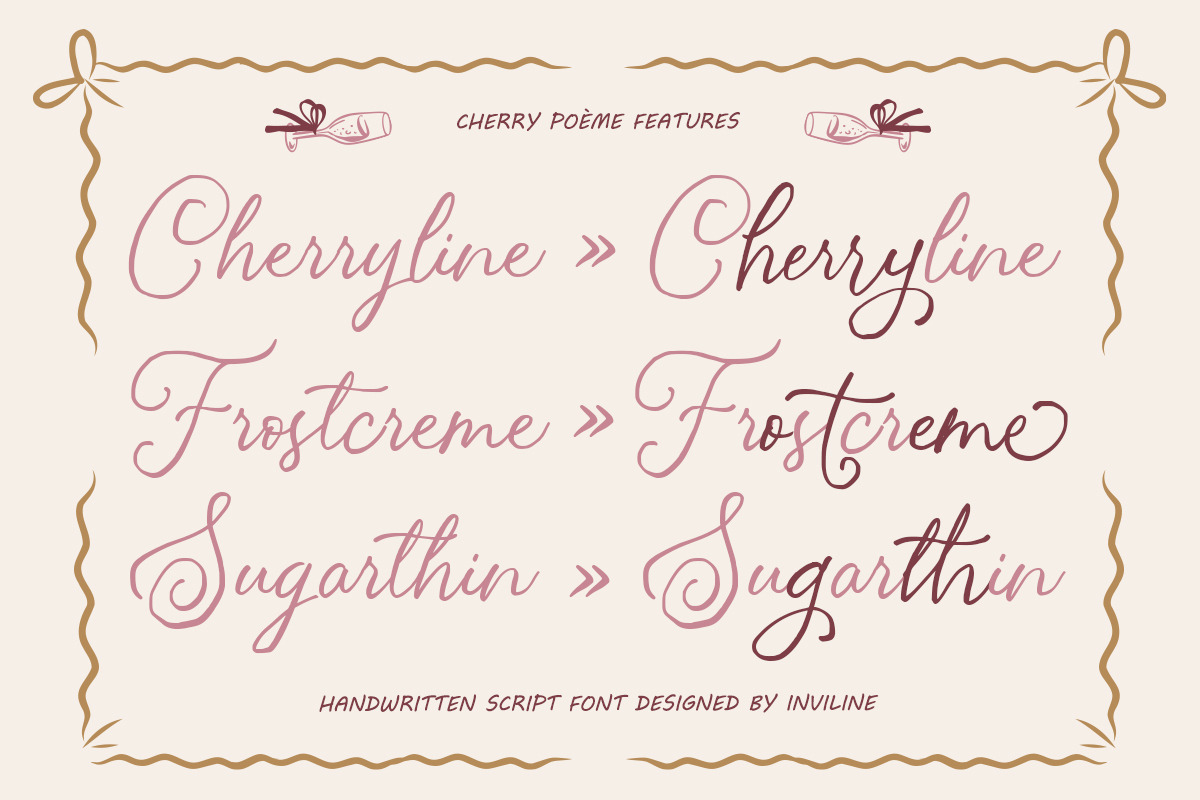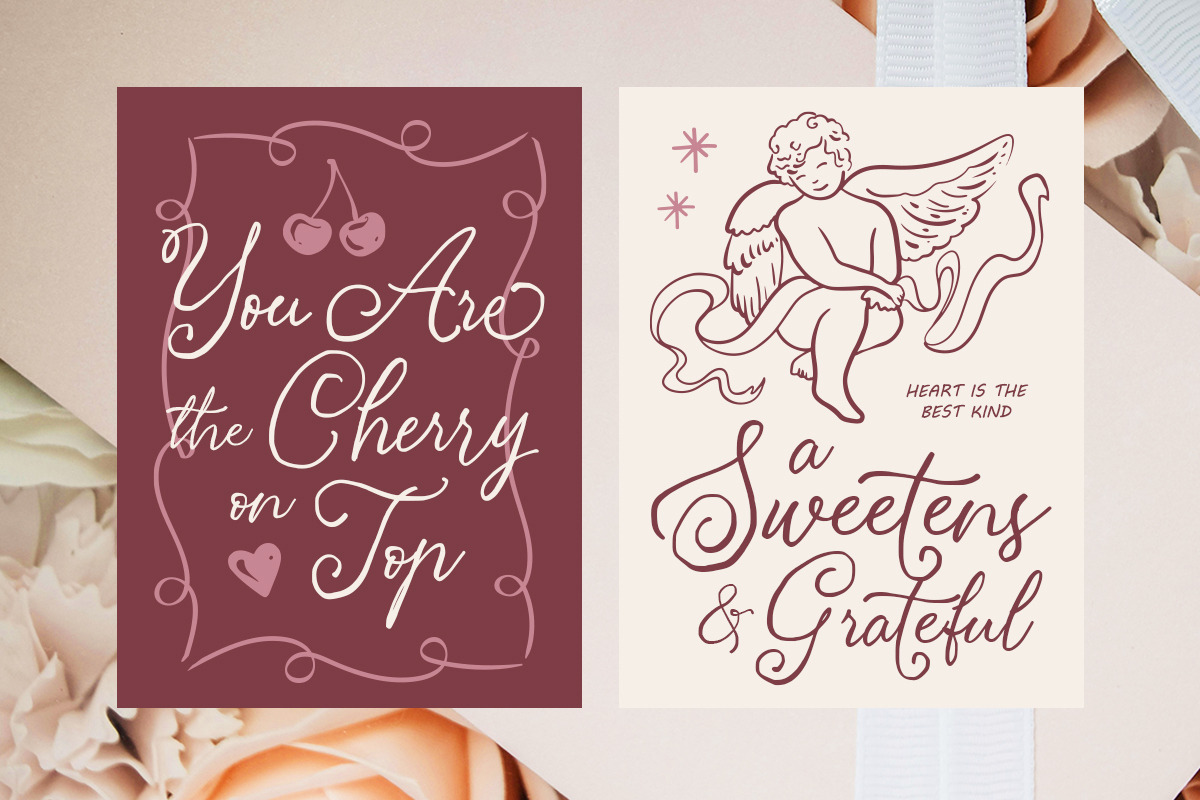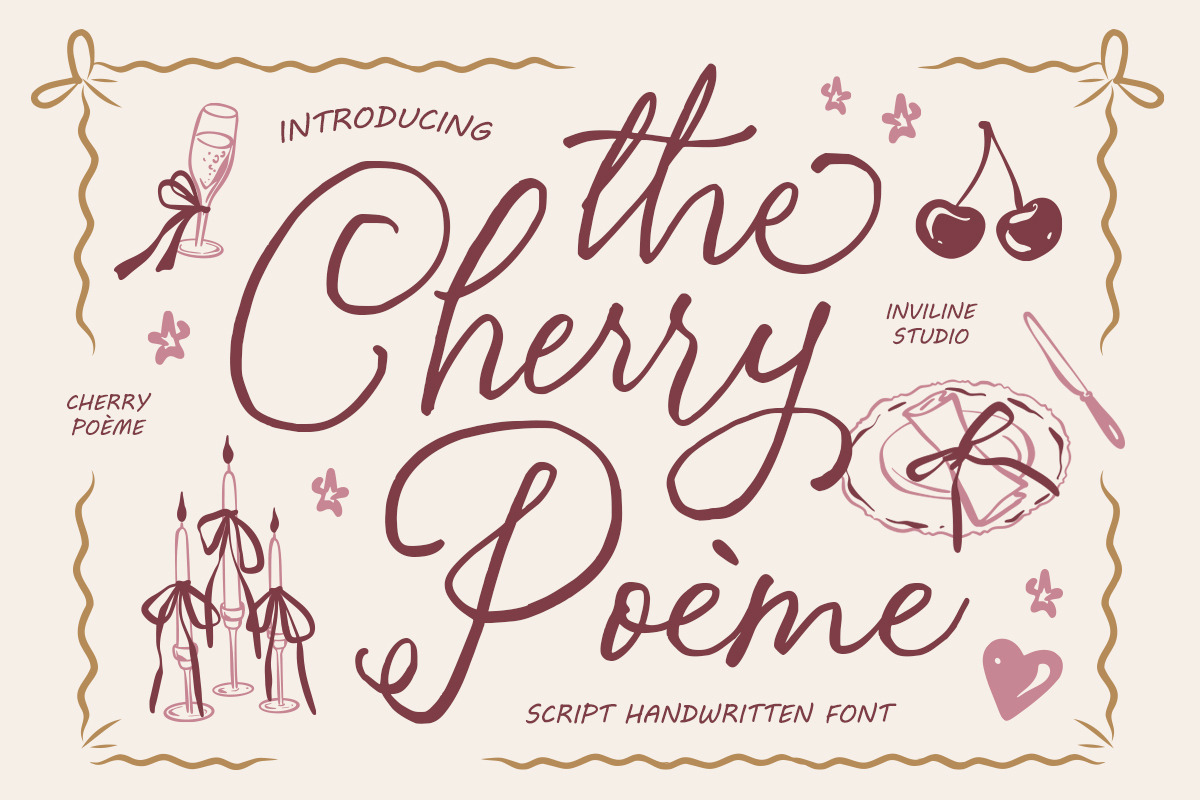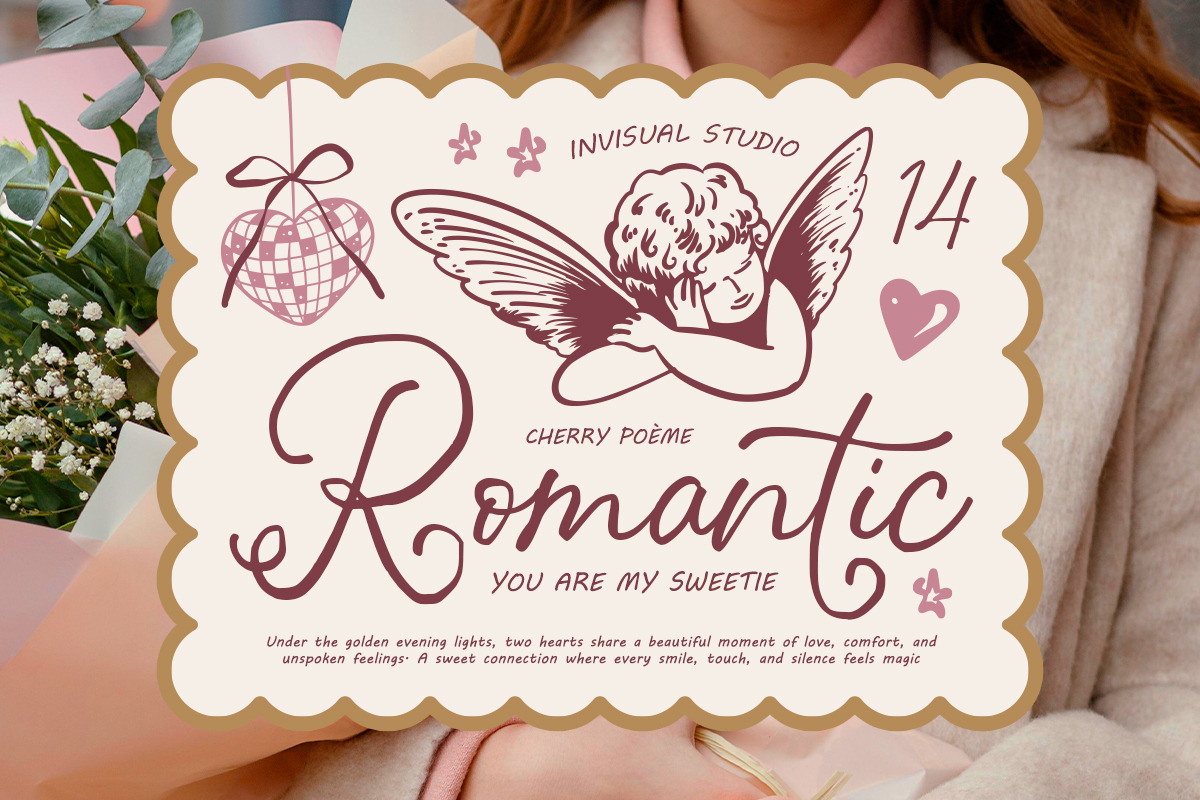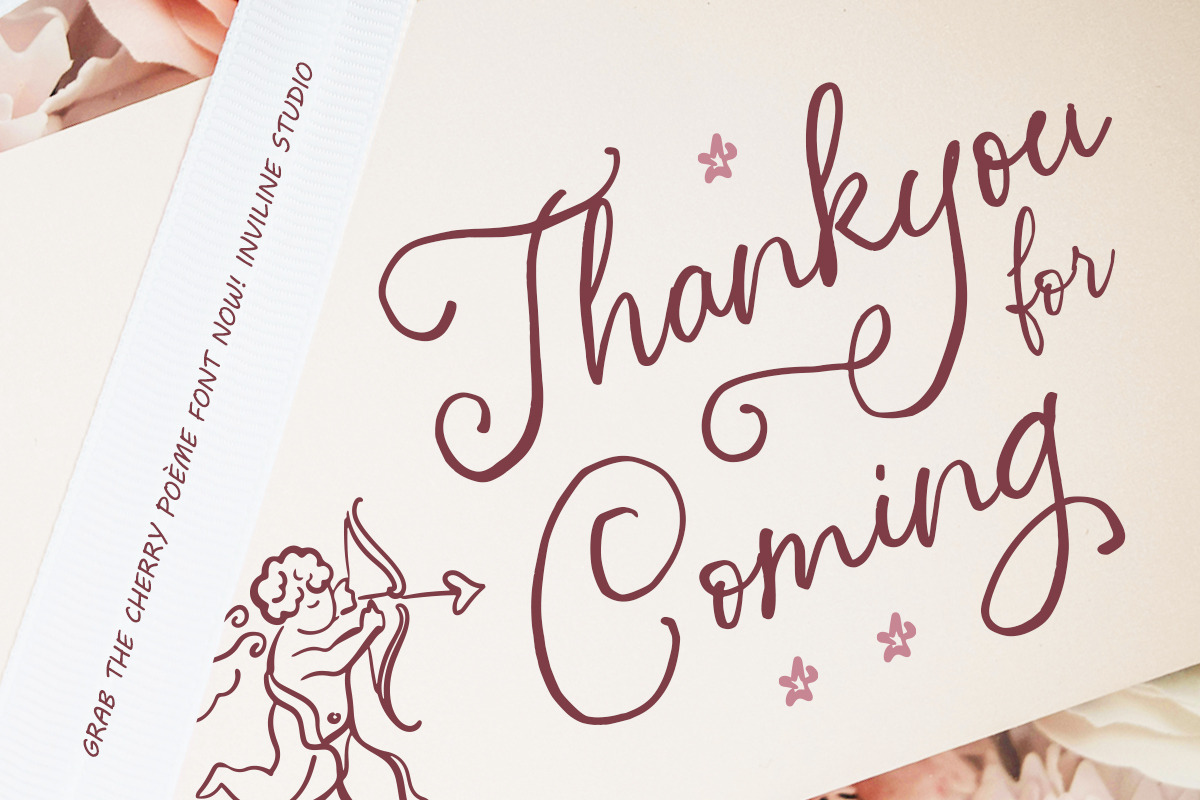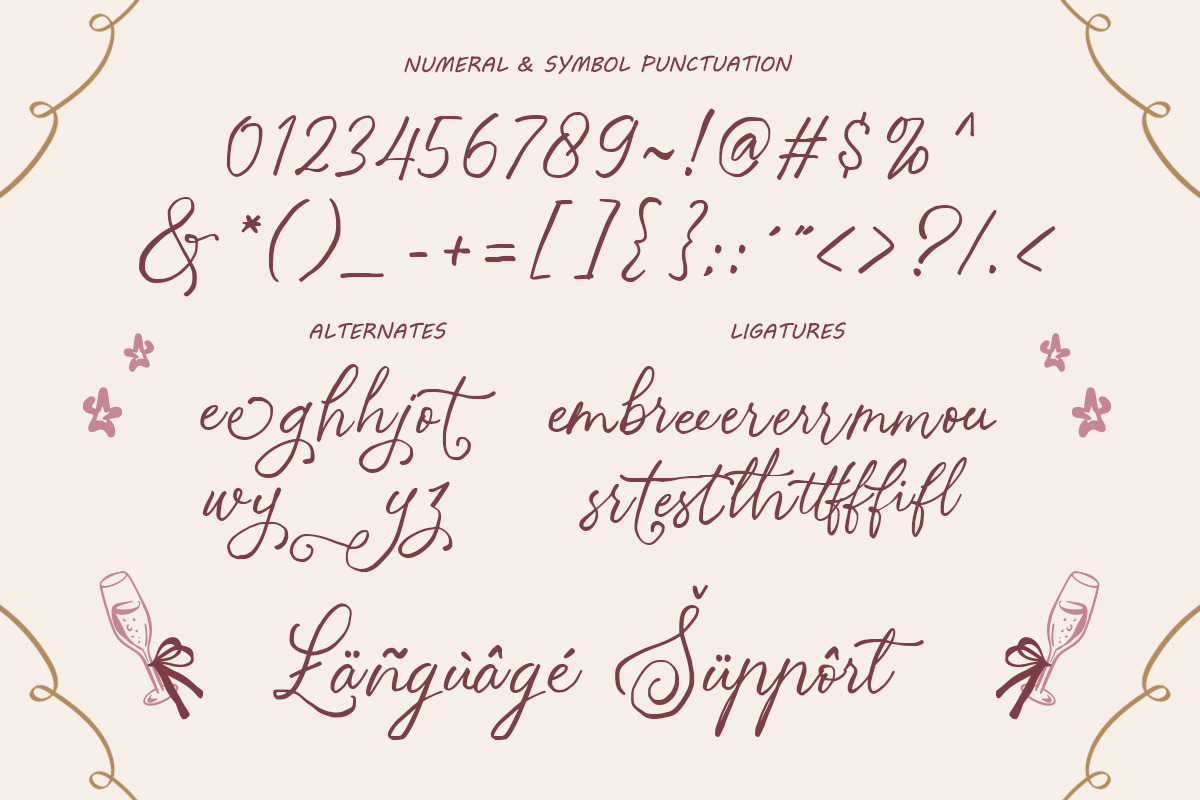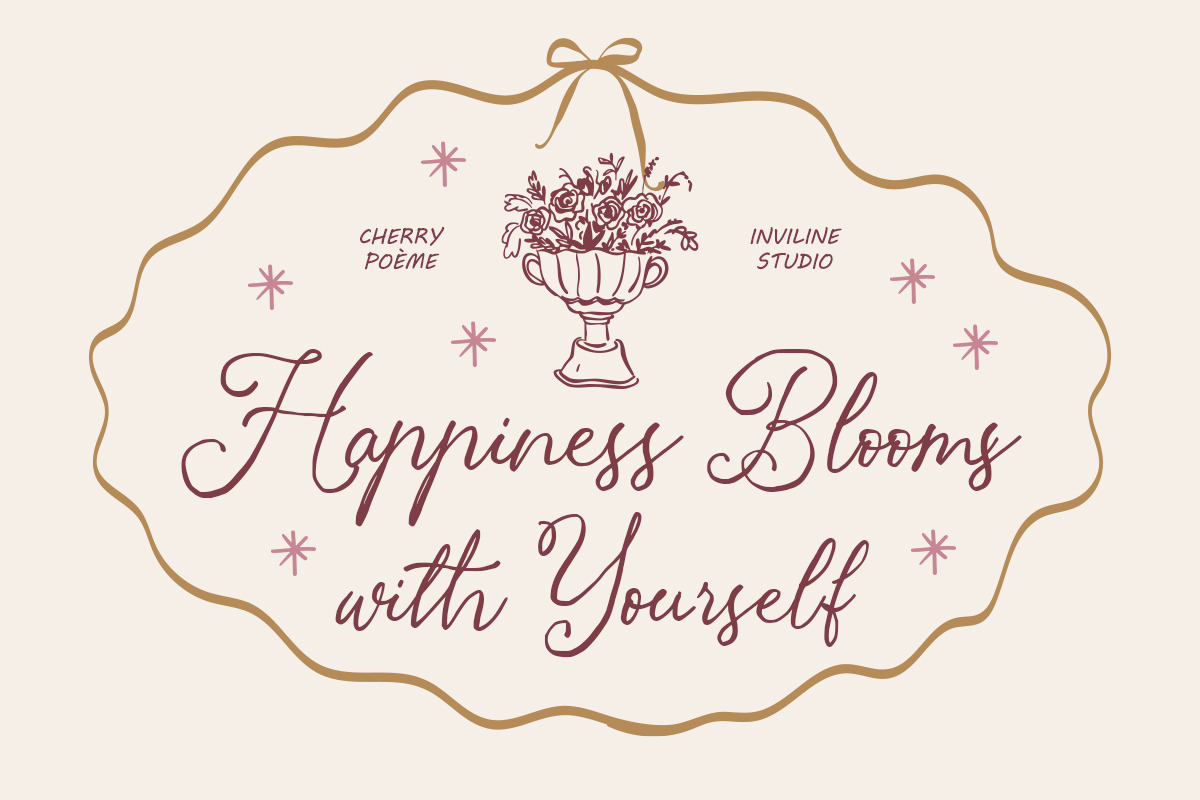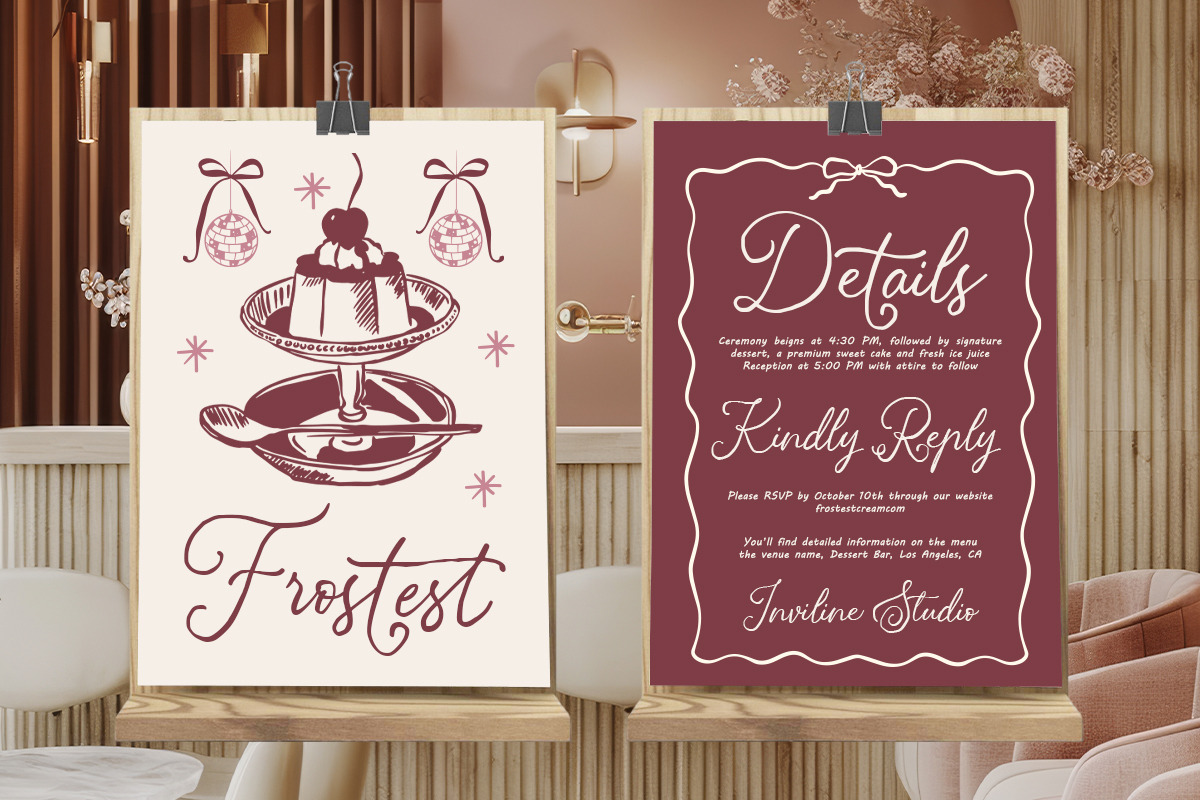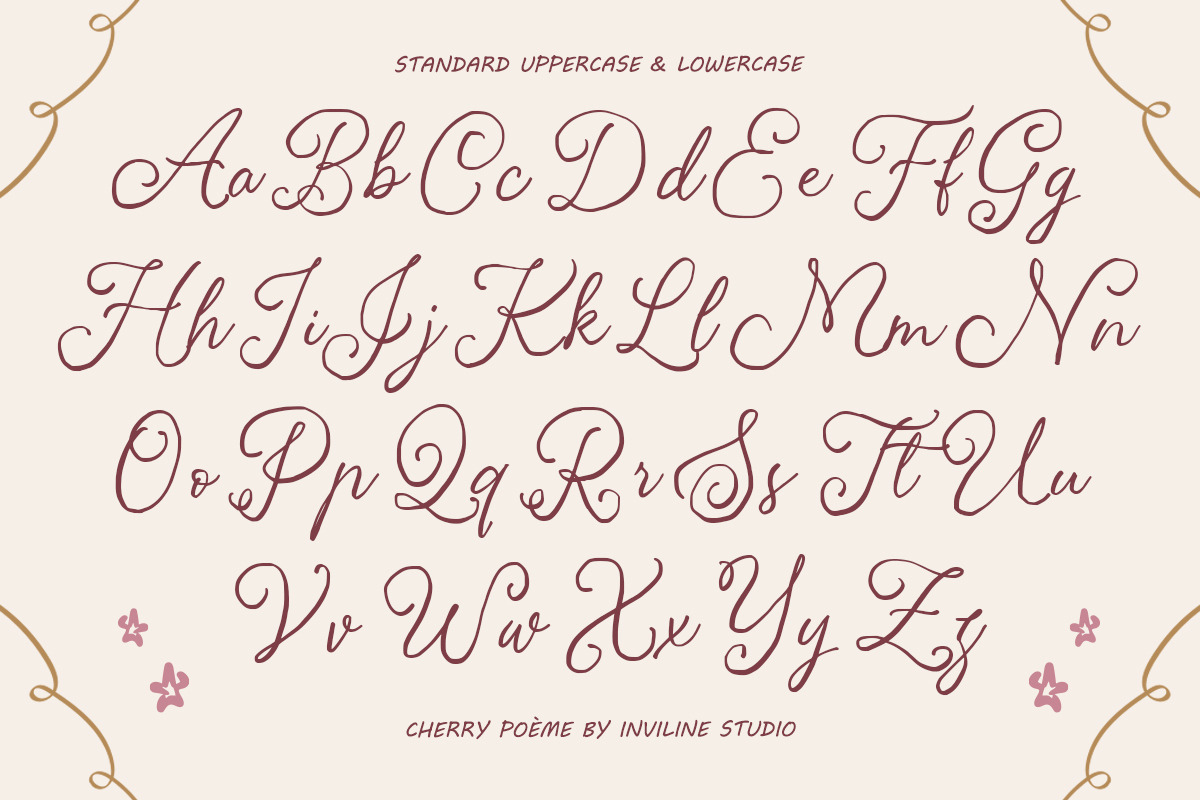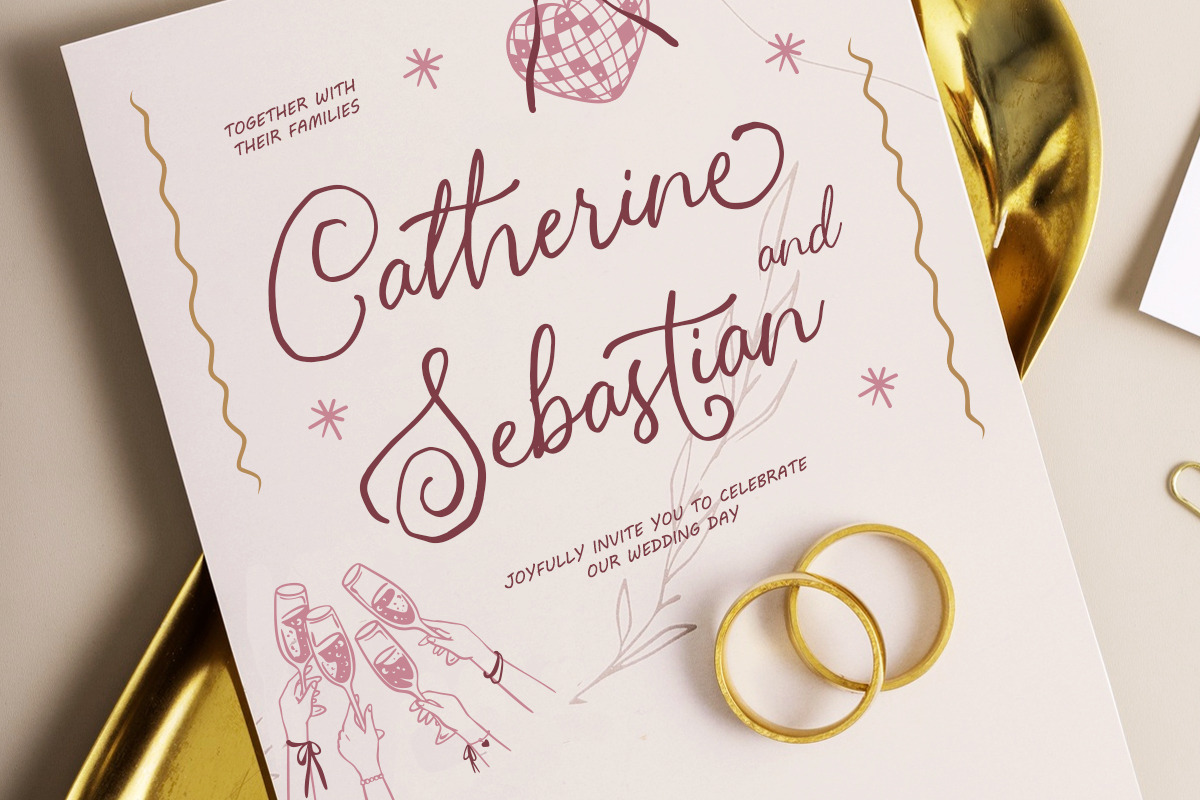
Cherry Poeme Handwritten Script Font
Cherry Poème is a sweet handwritten script font featuring romantic aesthetics and an elegant, organic flow. Crafted by Inviline Studio, it brings a beautiful touch of love to wedding invitations, dessert branding, and modern apparel lines. Effortlessly elevate your stationery designs with its custom-lettered look.
Add a touch of pure romance and handwritten warmth to your creative projects with Cherry Poème, an elegant handwritten script font by Inviline Studio. Inspired by golden evening lights and heartfelt connections, this font perfectly captures a sweet, casual yet high-end aesthetic. Its smooth connections and organic rhythm make it exceptionally well-suited for bridal stationery, boutique retail branding, and artisanal culinary packaging.
Full Character Set (Standard Uppercase & Lowercase A-Z)
Numbers (0-9) & Comprehensive Punctuation
Decorative Symbols, Accents, and Global Currency Support ($\$, €, £, ¥$)
Custom Stylistic Alternates & Standard Ligatures (e.g., Cherryline, Frostcreme, Sugarthin)
Extensive Multilingual Support
Sweet Handwritten Aesthetic: Perfectly emulates natural, heartfelt penmanship.
Romantic Character Flow: Elegant loops and connections create a balanced, custom look.
Smart OpenType Features: Built-in ligatures automatically adjust letters for an authentic feel.
Ideal For / Use Cases
Wedding & Bridal Stationery: Elegant wedding invitations, RSVP cards, save-the-date layouts, and menus.
Bakery & Dessert Branding: Pastry shops, boutique cake packaging, dessert bar signage, and sweet labels.
Boutique Fashion & Apparel: Intimate apparel tags, cozy sweaters branding, and lifestyle merchandise.
Editorial & Social Media: Romantic quote layouts, magazine headers, greeting cards, and romantic lookbooks.